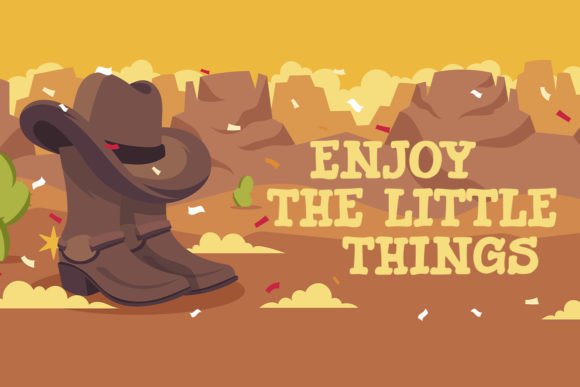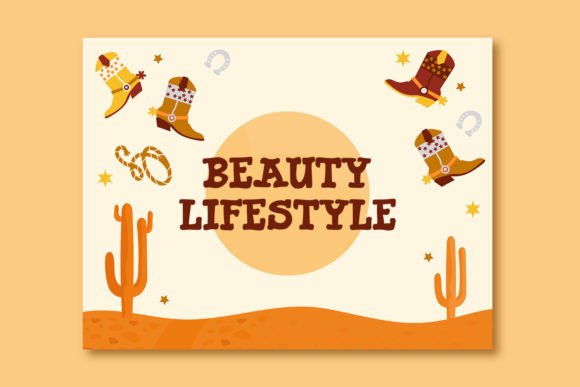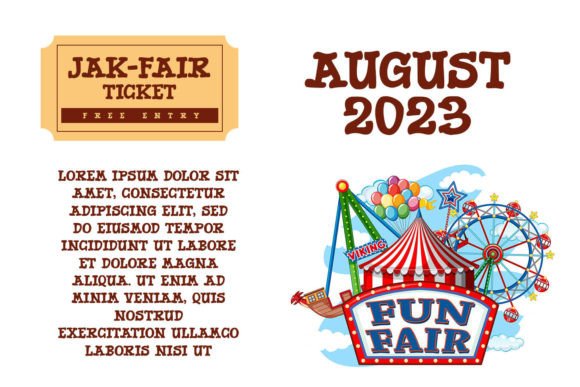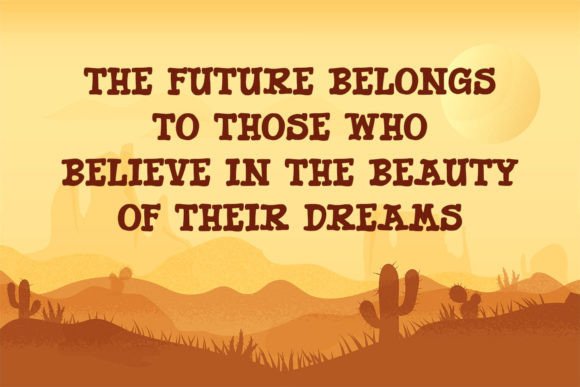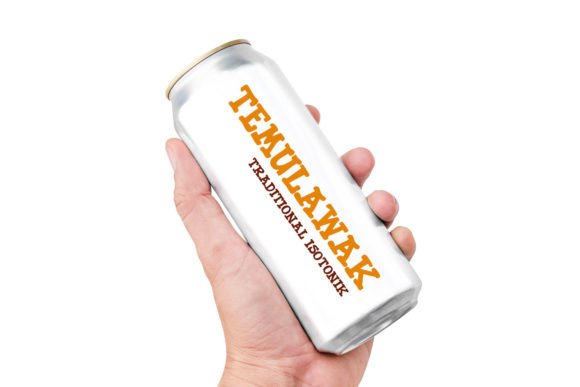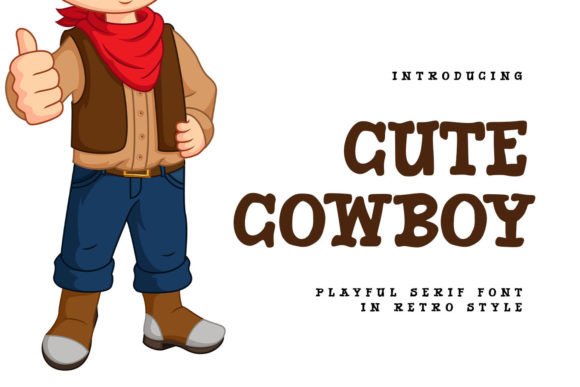
Cute Cowboy Font: The Perfect Addition to Your Design Arsenal
Are you tired of using the same old fonts in your designs? Look no further! Introducing CUTE COWBOY, a delightful retro serif font that’s sure to add a touch of whimsy to your creations. In this article, we’ll dive into the features and benefits of this charming font, and explore how it can elevate your branding, quotes, logos, and more.
What is Cute Cowboy Font?
CUTE COWBOY is a cute serif font that’s reminiscent of classic Western typography. Its unique blend of vintage charm and modern flair makes it perfect for designers and crafters looking to add a dash of personality to their work. Whether you’re creating logos, t-shirt designs, tote bag designs, cards, banners, or social media graphics, this font is sure to delight.
Key Features of Cute Cowboy Font
- Uppercase style: CUTE COWBOY features an uppercase style that’s perfect for making a statement.
- Numeral: The font includes numerals, making it easy to add numbers to your designs.
- Multilingual Support: With multilingual support, you can use CUTE COWBOY to create designs for a global audience.
- Punctuation: The font includes a range of punctuation marks, ensuring that your designs are always grammatically correct.
- PUA encoded: CUTE COWBOY is PUA encoded, making it easy to use in a variety of design software.
Benefits of Using Cute Cowboy Font
So why choose CUTE COWBOY for your design projects? Here are just a few benefits of using this delightful font:
- Add a touch of whimsy: CUTE COWBOY’s unique style adds a touch of whimsy to any design, making it perfect for brands and designers looking to stand out.
- Perfect for branding: The font’s bold, uppercase style makes it ideal for logos, branding, and advertising.
- Easy to read: Despite its playful style, CUTE COWBOY is easy to read, making it perfect for quotes, posters, and other designs where legibility is key.
- Versatile: Use CUTE COWBOY for a wide range of design projects, from t-shirt designs to social media graphics.
How to Use Cute Cowboy Font in Your Designs
Ready to start using CUTE COWBOY in your designs? Here are a few ideas to get you started:
- Logos and branding: Use CUTE COWBOY to create bold, eye-catching logos that make a statement.
- T-shirt designs: Add a touch of whimsy to your t-shirt designs with CUTE COWBOY’s playful style.
- Social media graphics: Use CUTE COWBOY to create engaging social media graphics that stand out from the crowd.
- Posters and quotes: CUTE COWBOY’s easy-to-read style makes it perfect for posters and quotes.
In conclusion, CUTE COWBOY is a delightful retro serif font that’s sure to add a touch of whimsy to your designs. With its bold, uppercase style, multilingual support, and PUA encoding, this font is perfect for designers and crafters looking to create eye-catching logos, t-shirt designs, social media graphics, and more. So why wait? Download CUTE COWBOY today and start adding a touch of Western charm to your designs!
Tips and Variations
Want to get the most out of CUTE COWBOY? Here are a few tips and variations to try:
- Experiment with colors: Try pairing CUTE COWBOY with bold, bright colors to add an extra touch of whimsy to your designs.
- Mix and match: Combine CUTE COWBOY with other fonts to create unique and interesting typography.
- Use it for headlines: CUTE COWBOY’s bold style makes it perfect for headlines and titles.